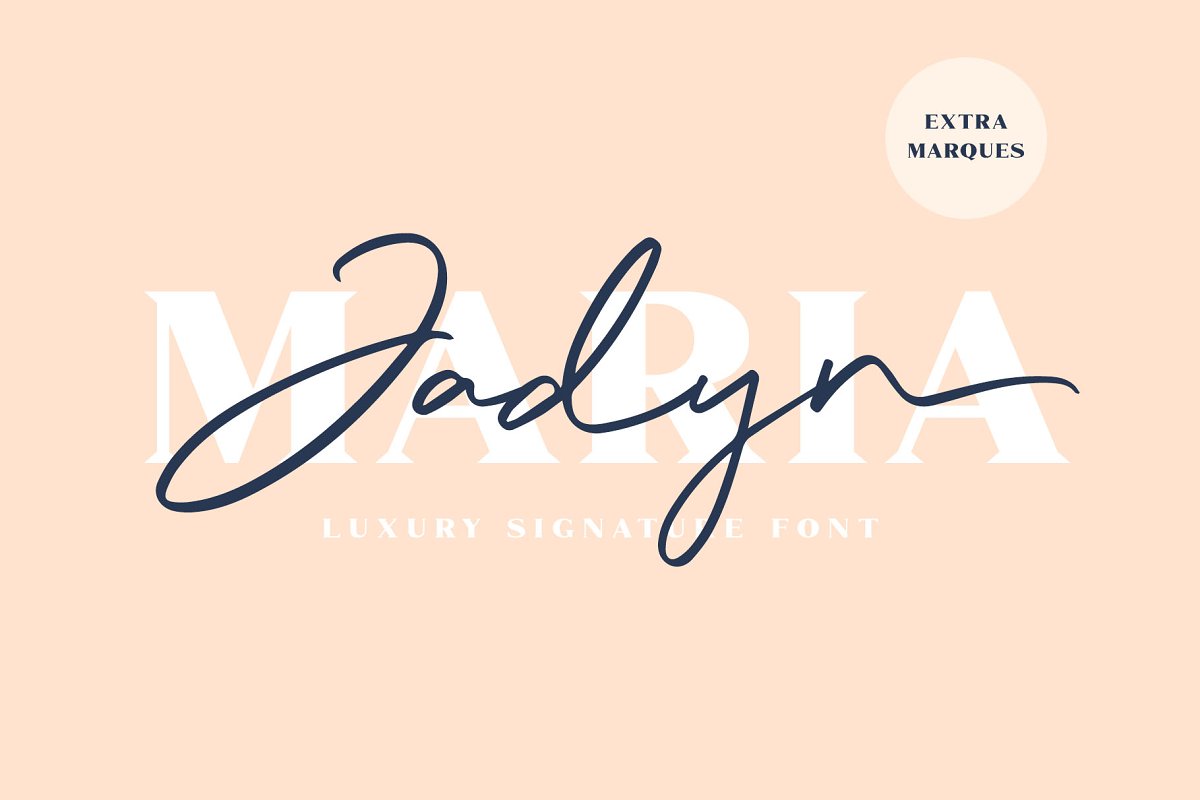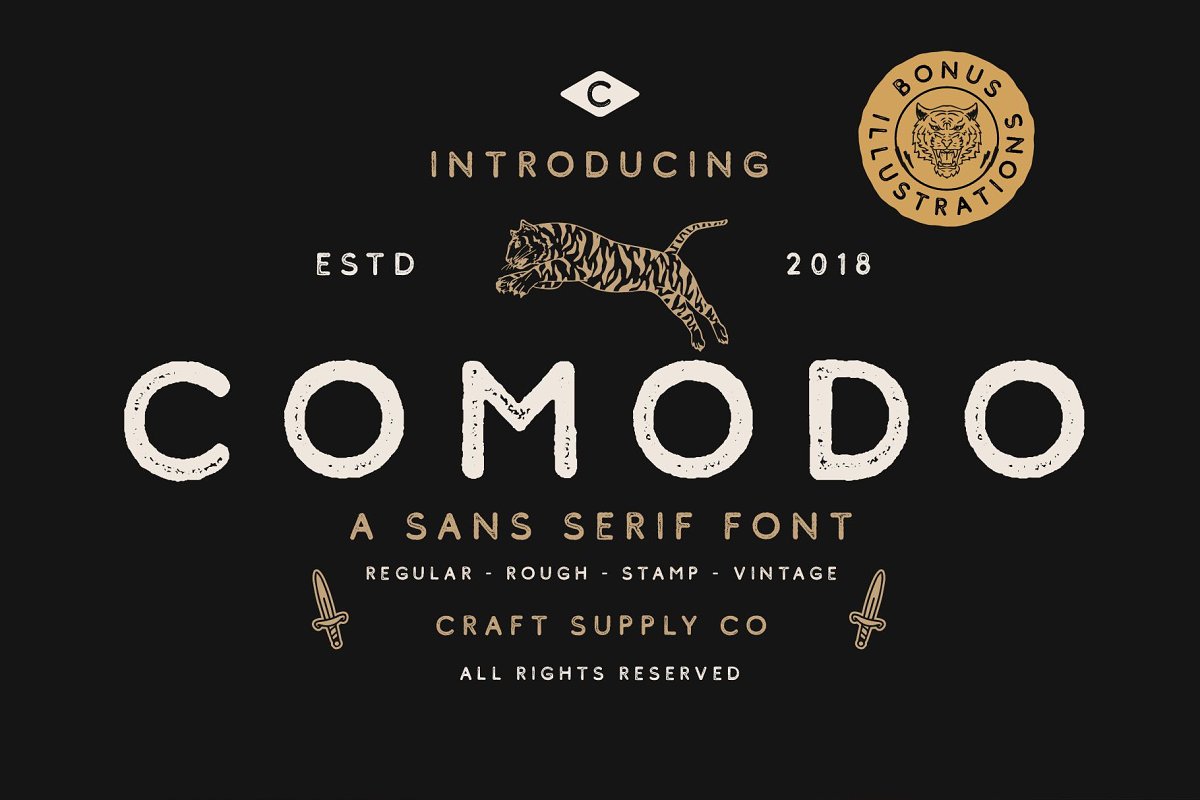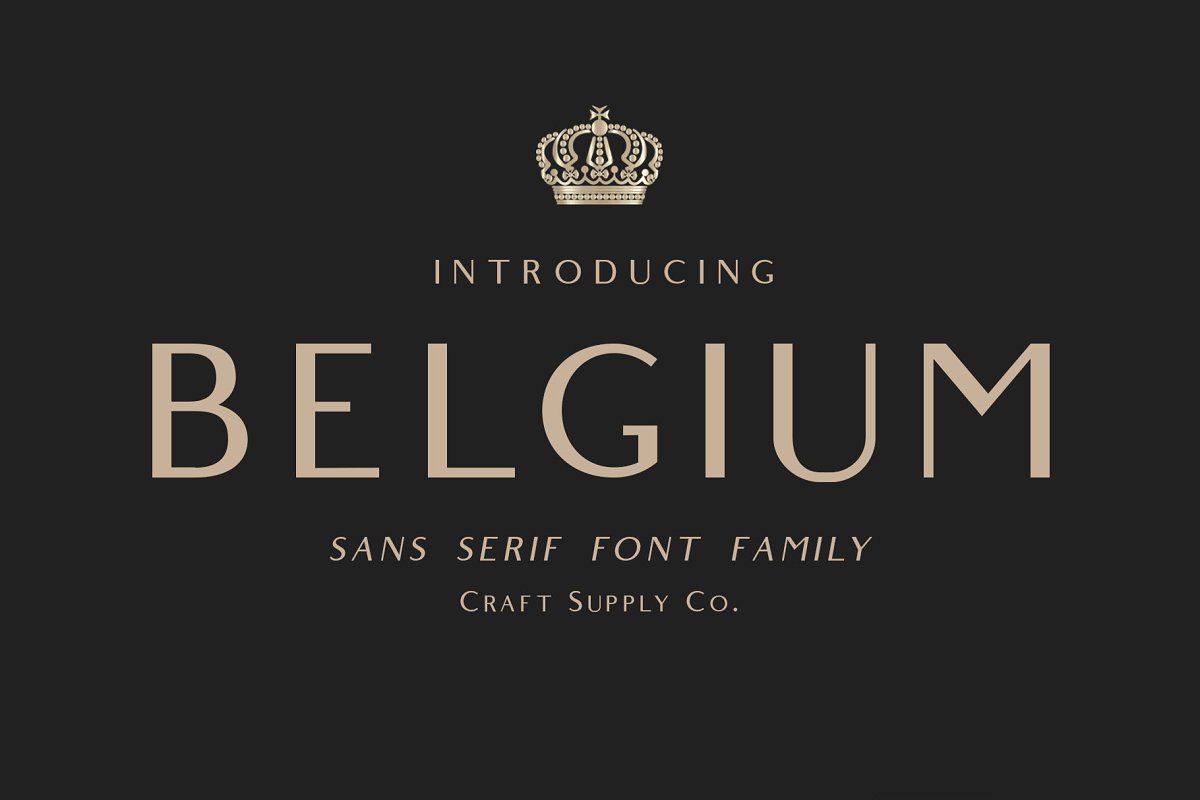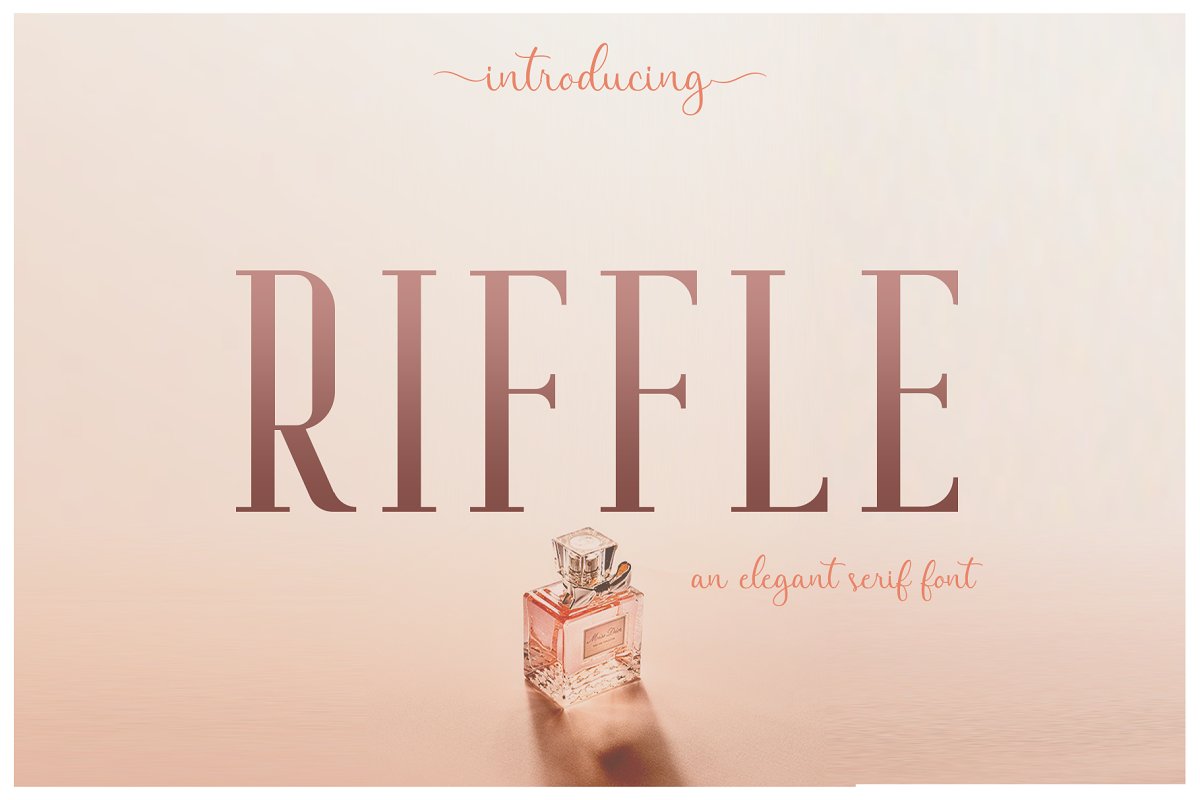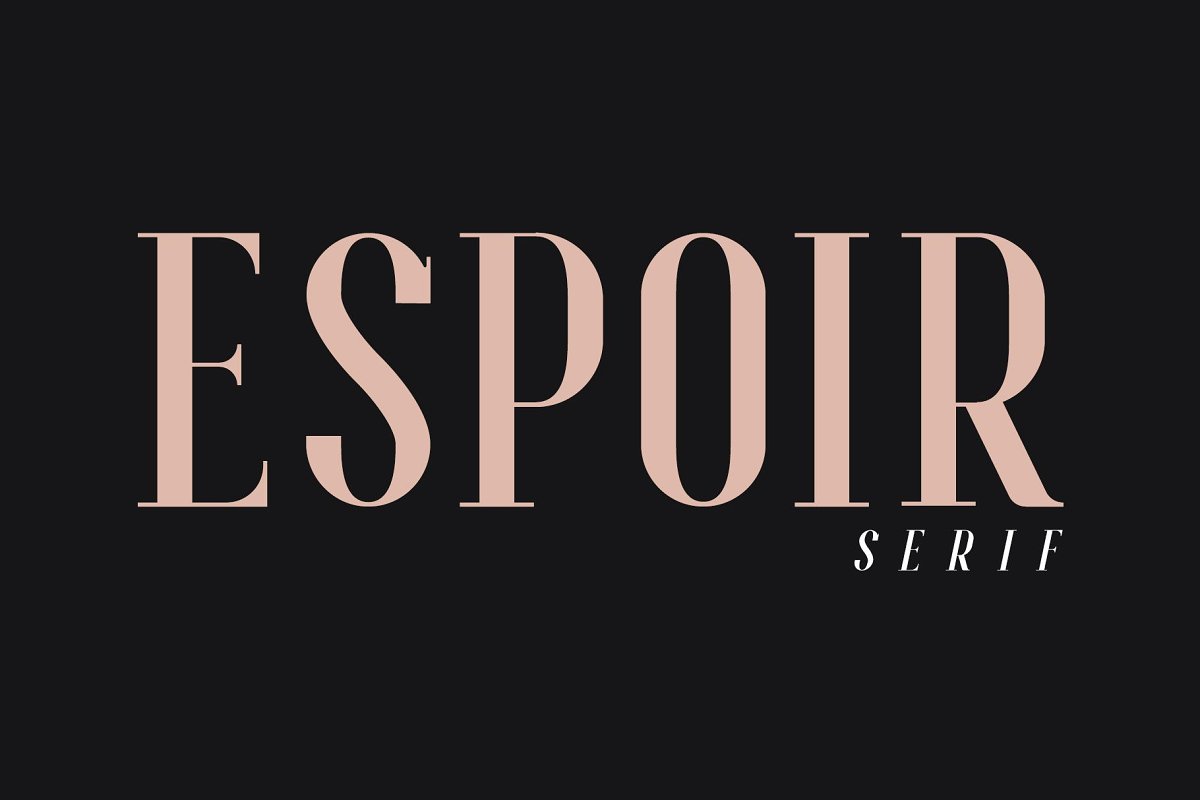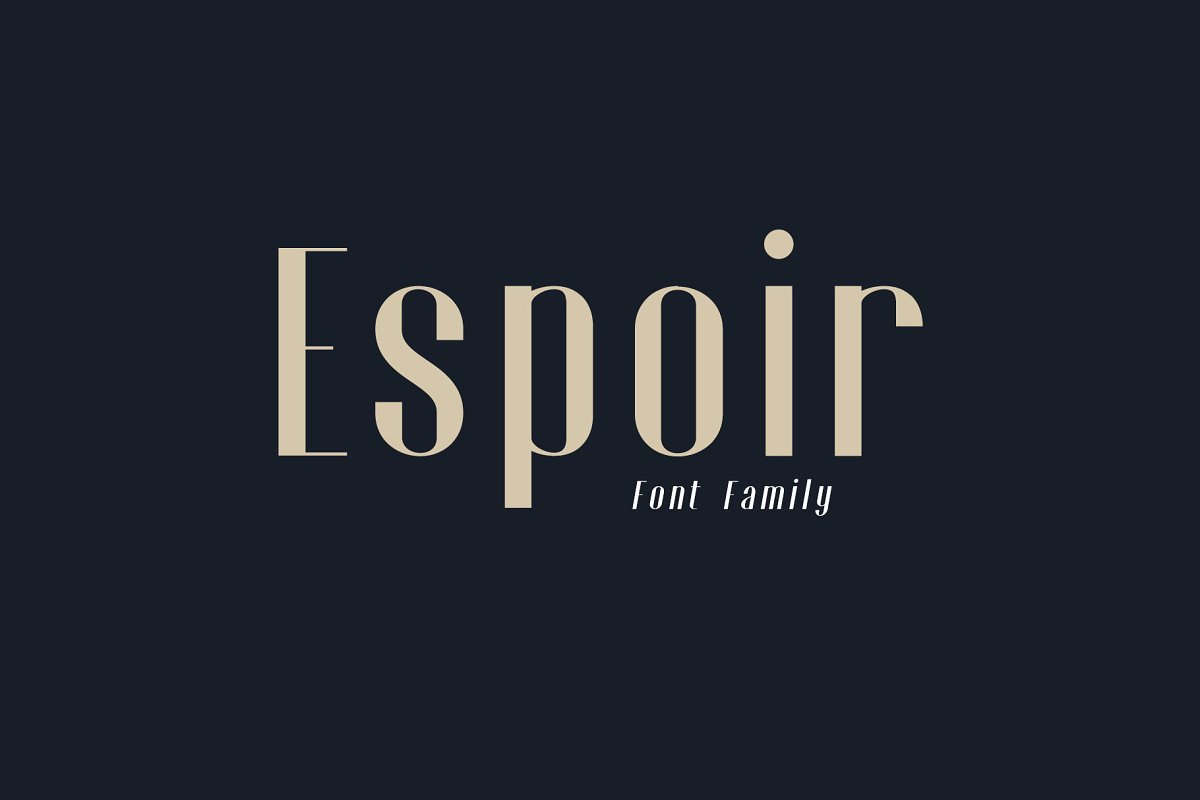
Also suitable for happening style like handdrawn design, craft design, any DIY project, book title, wedding font, pop vintage design, retro design or any purpose to make your art / design project look pretty and trendy, What you get :The Fonts :Comodo Font Family + Illustrations ( https://crmrkt